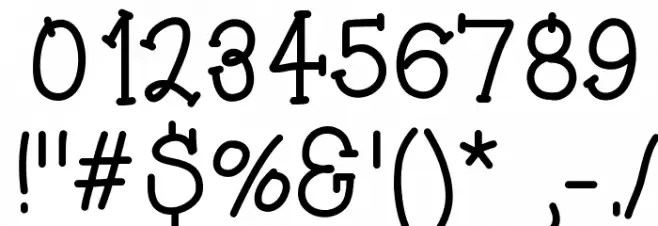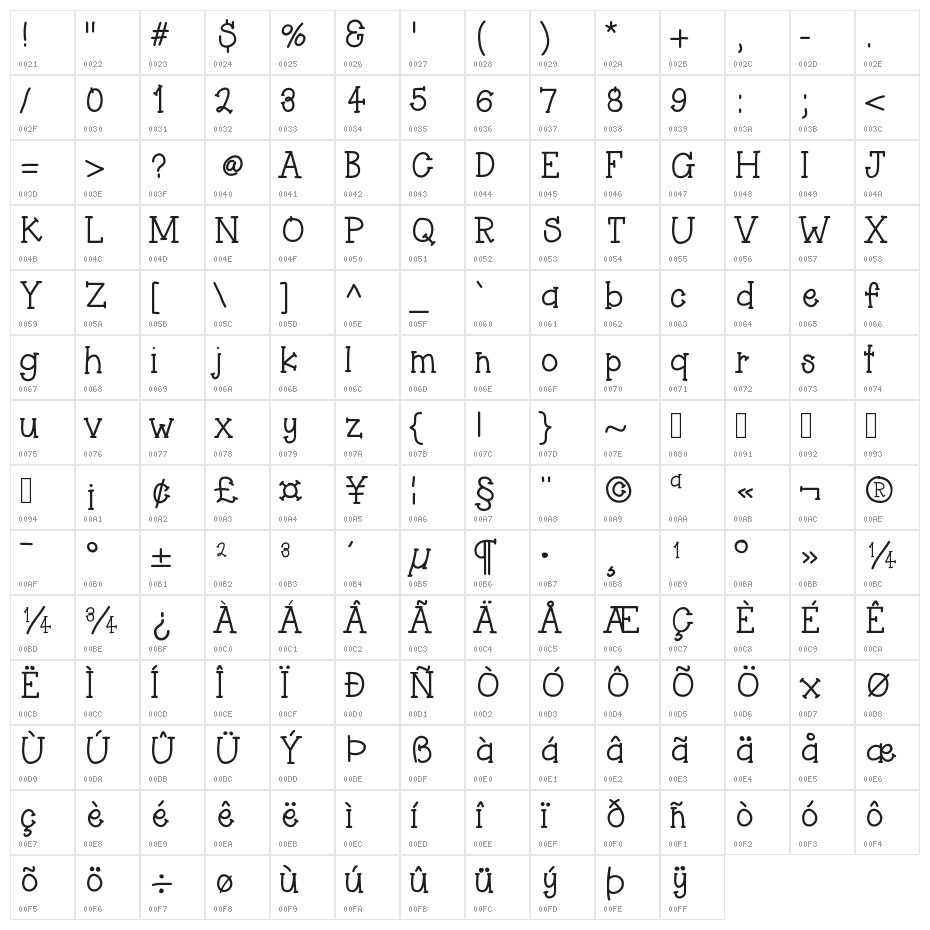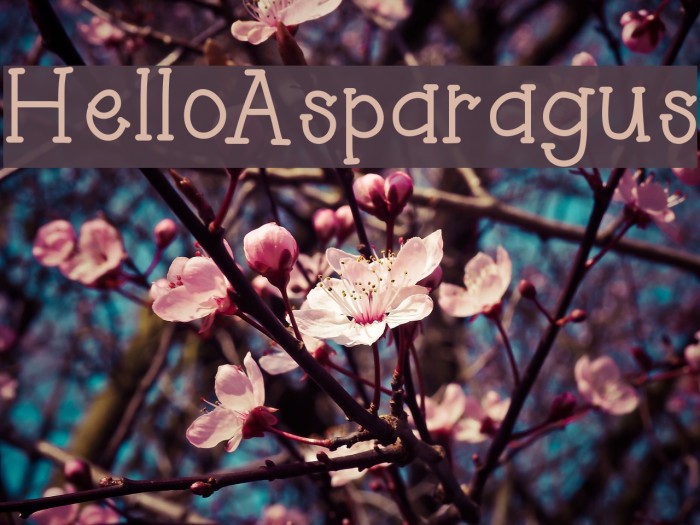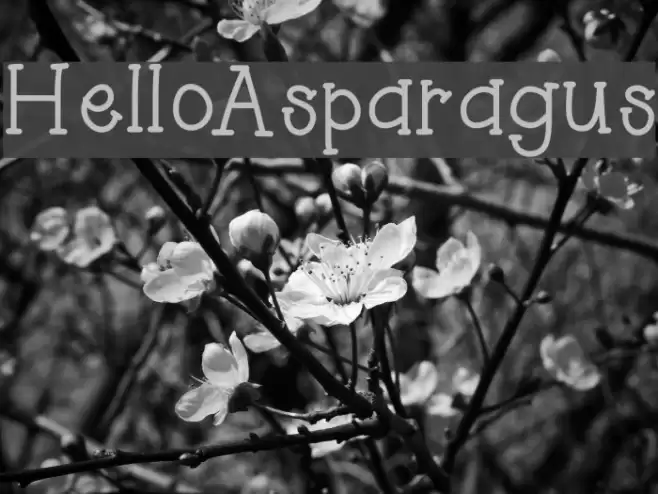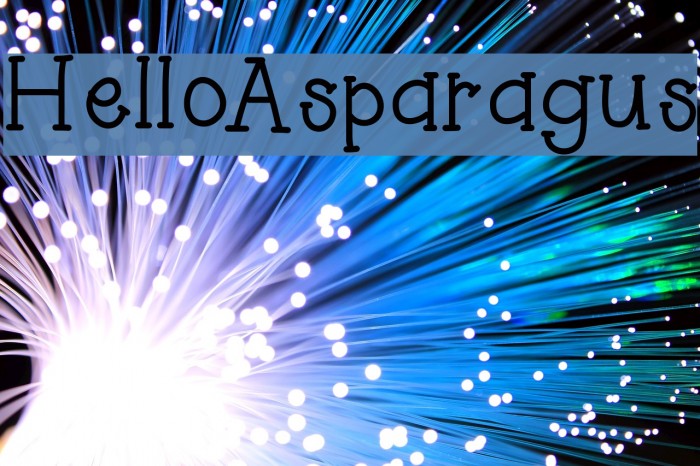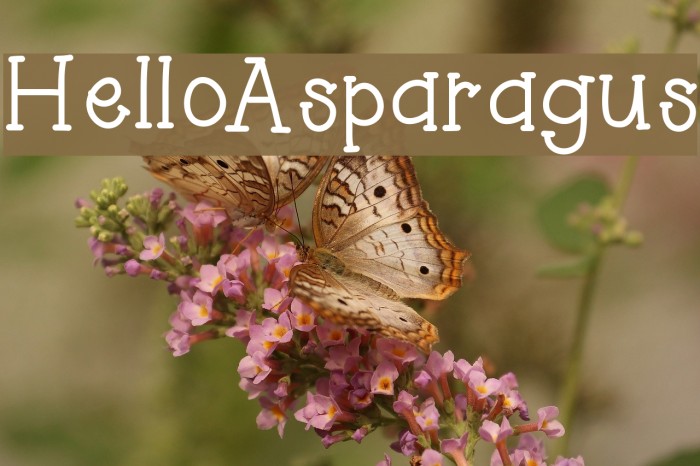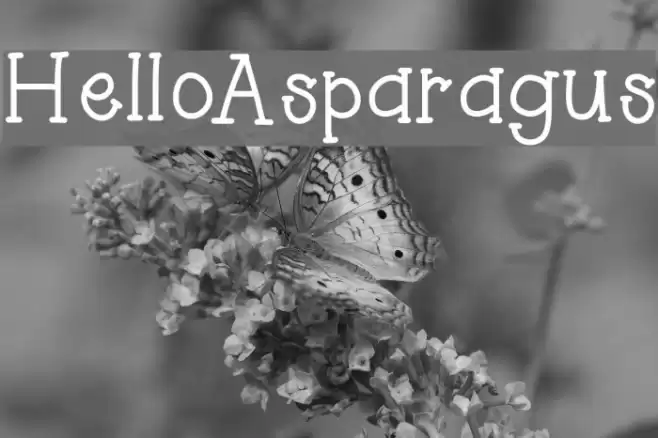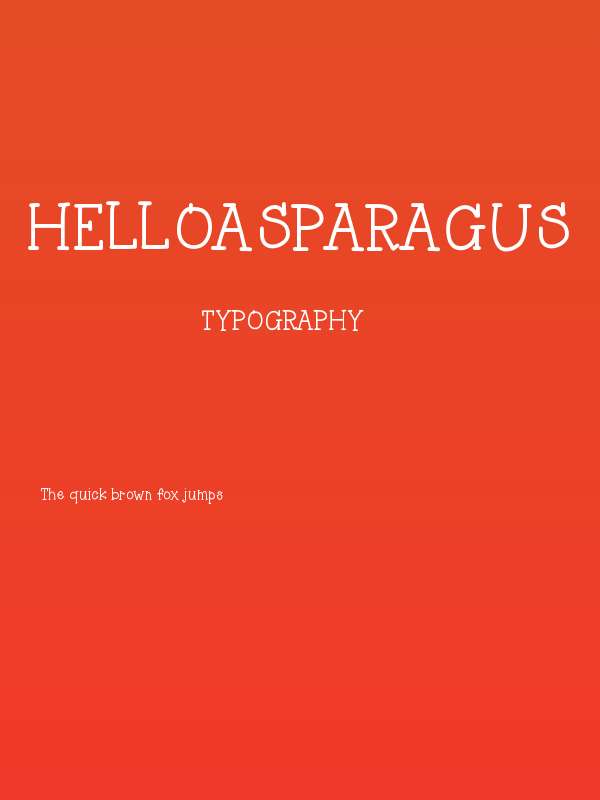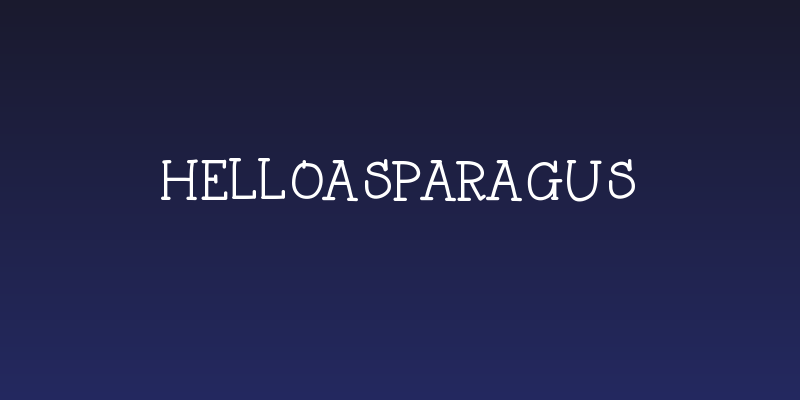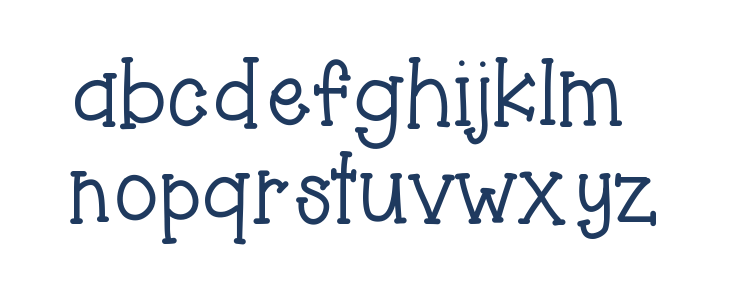
HelloAsparagus Font
HelloAsparagus Description
This font features a playful and whimsical design with rounded, slightly irregular strokes that give it a hand-drawn appearance. The characters are bold and have a consistent weight, making them highly legible. The uppercase letters are slightly taller than the lowercase, and the numerals are clear and distinct. Special characters are creatively designed, maintaining the font's overall playful aesthetic. The font's unique style is suitable for projects that require a touch of fun and creativity.